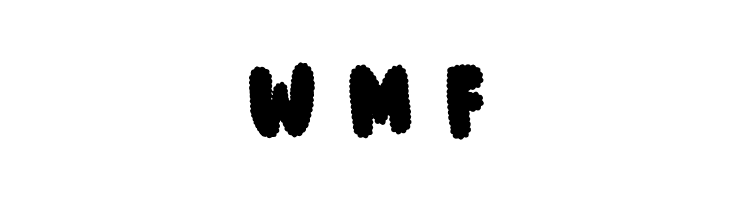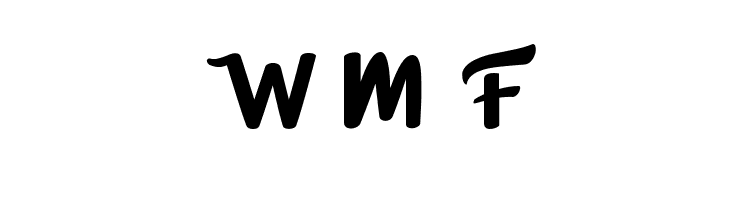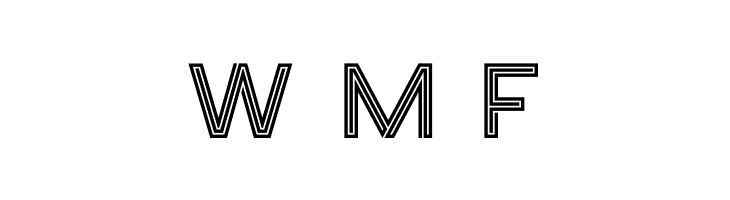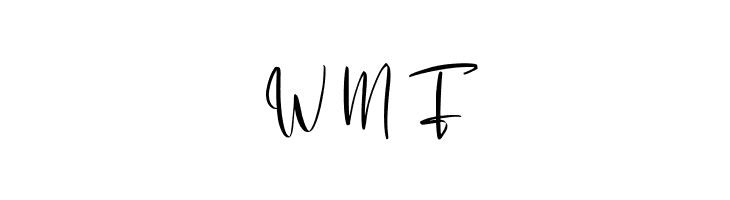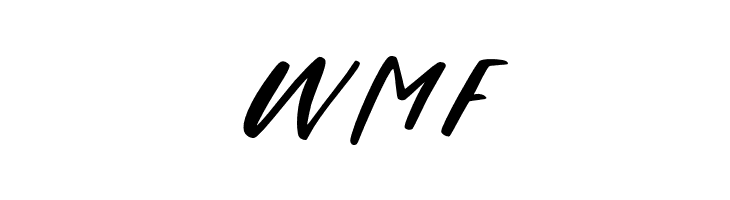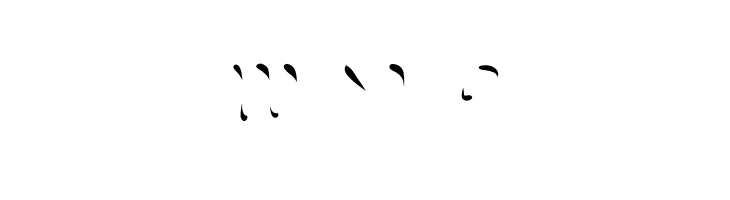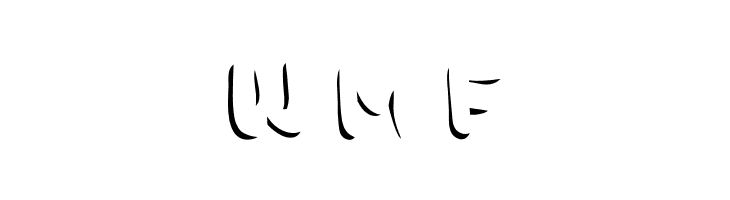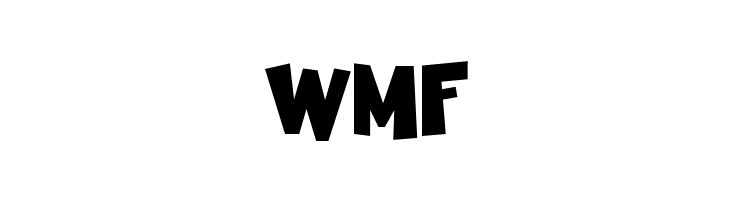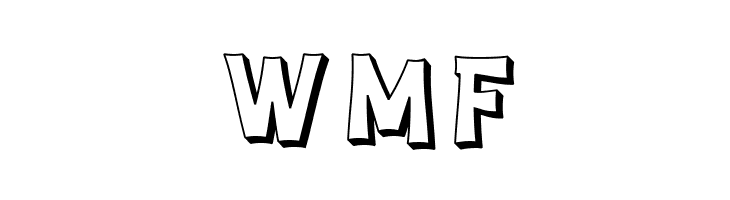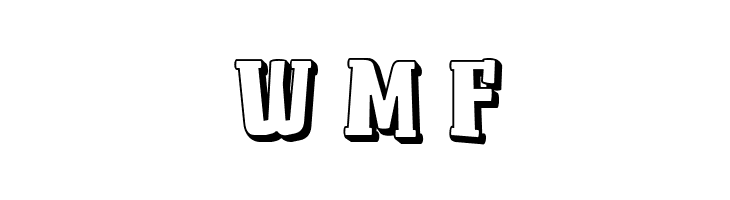
Cholo Letters Demo Font
A bold, angular font inspired by Chicano street art with a strong, edgy style.
Cholo Sperry Rand R20 Micro Font
A distressed, hand-drawn font with a grungy, graffiti-like style.
Chomage Font
A bold, decorative font with a three-dimensional, maze-like design.
Chomiku 3D Regular Font
A bold, playful 3D font with a cartoonish style and shadow effect.
Chomiqy free version Regular Font
A bold, playful font with exaggerated, uneven strokes for a whimsical look.
Chomixi 3D Regular Font
A bold, 3D font with strong shadow effects and a playful, cartoonish style.
CHOMOLO Font
A bold, playful font with rounded, textured edges resembling fluffy clouds.
Chomp Font
A bold, playful handwritten font with thick strokes and a casual style.
Chompton Font
A bold, flowing script font with dramatic curves and calligraphic flair.
Chompy Font
A bold, playful font with irregular, jagged edges and a dynamic feel.
Chomsky Font
A bold, blackletter font with intricate, gothic-inspired letterforms.
Chomsky Font
A traditional Blackletter font with intricate, angular designs and strong vertical emphasis.
Chonburi Font
A bold, high-contrast serif font with a modern yet classic style.
Chonker Font
A bold, playful font with thick, rounded strokes and a whimsical style.
Chonkies Font
A playful, bold, hand-drawn font with a cartoonish style.
Chonky Bunny Font
A playful, bold font with rounded edges and a friendly appearance.
Chooka Zoon Font
A playful, bubble-like font with bold, rounded characters.
Chop Crap Regular Font
A bold, rounded, and playful font with a chunky appearance.
Chop Regular Font
A bold, geometric font with a unique halftone pattern and modern artistic flair.